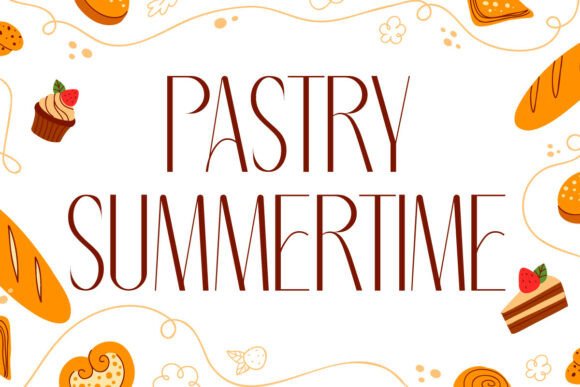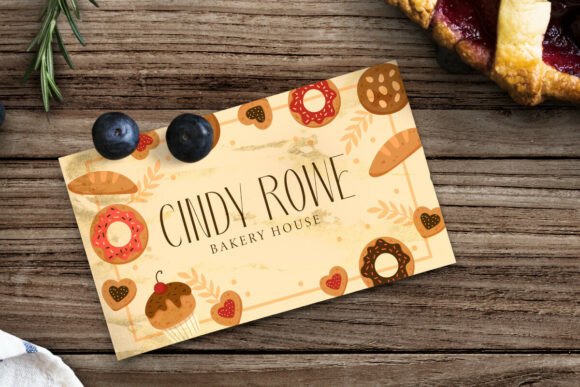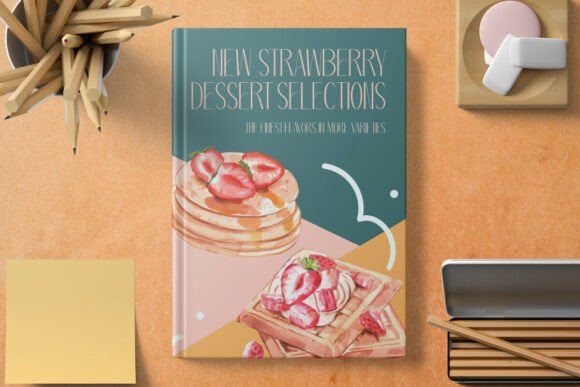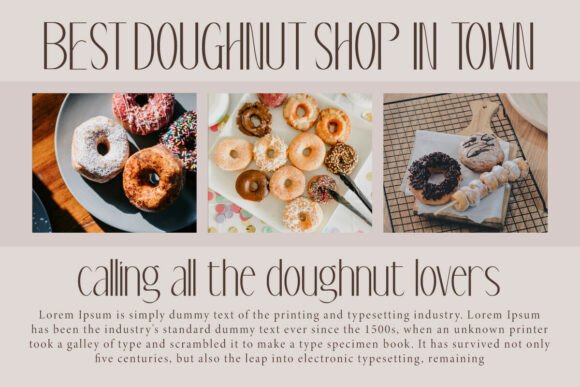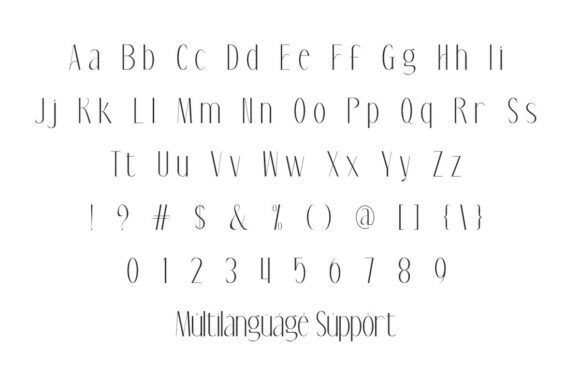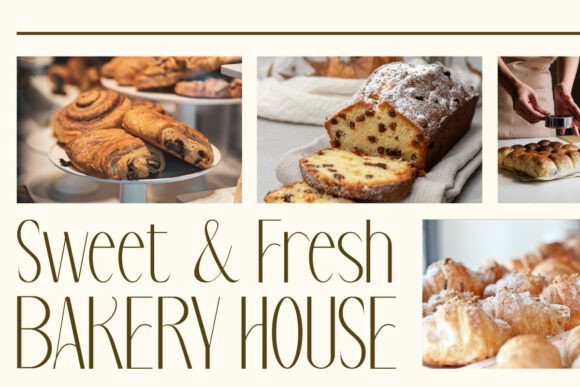
Introduction to Pastry Summertime Font
As a designer, there’s nothing quite like the thrill of working on a new creative project. You’re tasked with capturing the essence of a brand, conveying a message, or simply adding a touch of magic to a visual presentation. For me, it’s often the little details that make all the difference – like the perfect font.
That’s where Pastry Summertime Font comes in. This stunning display font exudes timeless charm, perfect for adding a touch of sophistication to your designs. With its clean lines, elegant curves, and transparent background, it’s a valuable resource for designers looking to elevate their work. Whether you’re working on a brochure, business card, or website, Pastry Summertime Font is sure to make a lasting impression.
What sets Pastry Summertime Font apart is its versatility – it’s available for free download, making it a valuable addition to any designer’s toolkit. Whether you’re working on a high-quality print project or a digital design, this font is sure to deliver. In this article, we’ll take a closer look at Pastry Summertime Font and explore its many uses and benefits.
Key Features of Pastry Summertime Font
- Unique, hand-drawn design with a summery feel, perfect for creative projects.
- High-quality font with a transparent background, ideal for use on various backgrounds.
- Perfect for creating invitations, greeting cards, and other design elements that evoke a sense of summer and warmth.
- Can be used for various design projects, including logos, branding, and packaging, thanks to its versatile and playful style.
Honest Review: Pastry Summertime Font
As a designer, I’m always on the lookout for unique and high-quality design resources to elevate my creative projects. Recently, I had the chance to test the Pastry Summertime Font, and I’m excited to share my honest review.
- ✨ The font has a beautiful, whimsical feel to it, perfect for summer-themed projects or designs that need a touch of warmth.
- ✨ The font is highly legible, even at smaller sizes, making it a great choice for body text or headings.
- ⚠️ The font doesn’t have a transparent background option, which might limit its use in certain design scenarios.
- ⚠️ The font is only available in a single weight, which might not be suitable for all design projects.
Overall, I’m impressed with the Pastry Summertime Font’s quality and unique design. While it has some limitations, it’s a great resource for designers looking for a free, high-quality font to add some personality to their creative projects.
How to Use Pastry Summertime Font
Designing with Pastry Summertime Font
The Pastry Summertime Font is a high-quality design resource perfect for creative projects that require a playful and whimsical touch. This font is available for free download, making it an excellent choice for designers on a budget. With its transparent background, it can be easily layered over images and other design elements.
Tips for Getting the Most Out of Pastry Summertime Font
To get the most out of Pastry Summertime Font, experiment with different font sizes, colors, and layering techniques. This font pairs well with bright and pastel colors, making it perfect for summer-themed designs.
Common Use Cases for Pastry Summertime Font
Pastry Summertime Font is ideal for designing:
- Summer-themed invitations and party decorations
- Children’s book illustrations and designs
- Food and beverage branding and packaging
Alternatives to Pastry Summertime Font
The Great Vibes Font is a high-quality, handwritten font that is perfect for creative projects that require a touch of elegance and sophistication. It features a transparent background and is available for free download. Great Vibes Font is ideal for designing menus, invitations, and other materials that require a personal touch.
Compared to Pastry Summertime Font, Great Vibes Font has a more refined and polished look, making it suitable for a wider range of design projects.